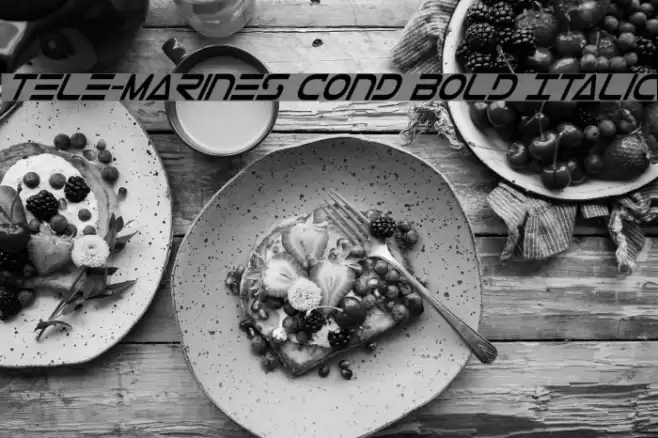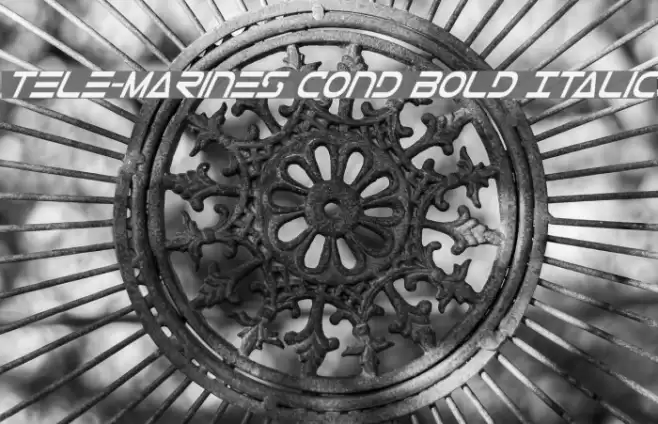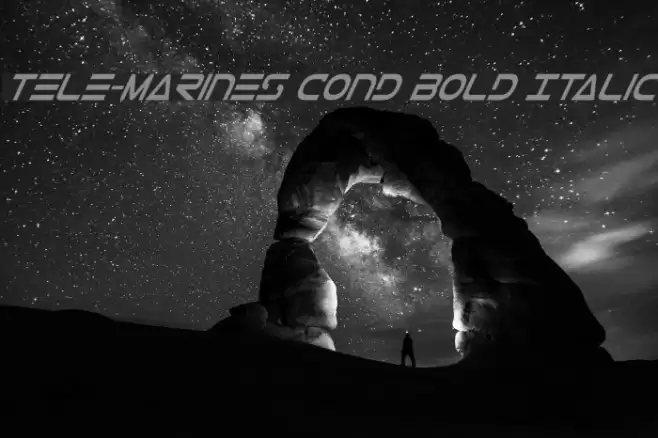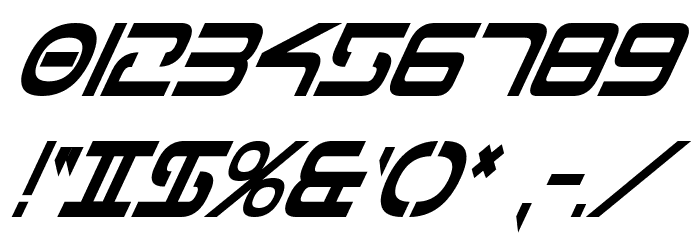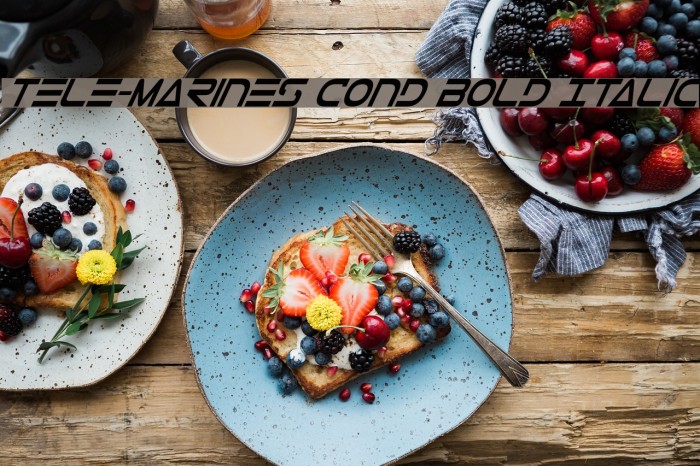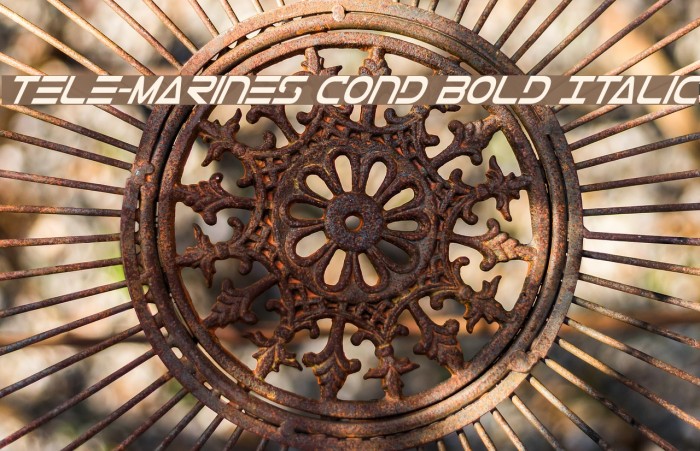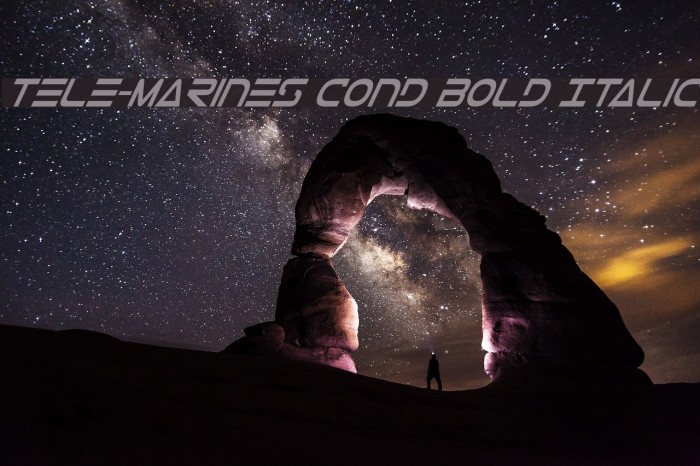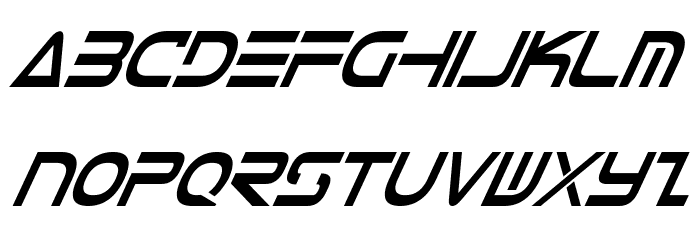
Tele-Marines Cond Bold Italic Font
Tele-Marines Cond Bold Italic Description
This font features a futuristic and dynamic design with a strong emphasis on angular and geometric shapes. The characters are slanted, giving a sense of motion and speed, which is enhanced by the bold weight and condensed width. The strokes are thick and consistent, providing a high contrast that makes each letter stand out distinctly. The overall style is modern and sleek, suitable for projects that require a cutting-edge and energetic appearance. The character spacing is tight, which contributes to its compact and efficient look.
A bold, italic, and condensed font with a futuristic and dynamic style from Uncategorized fonts.
- Proposed Projects: Ideal for technology branding, sports team logos, video game titles, and sci-fi movie posters.
- Character Spacing: Tight
- Use Case: Logos, Headlines